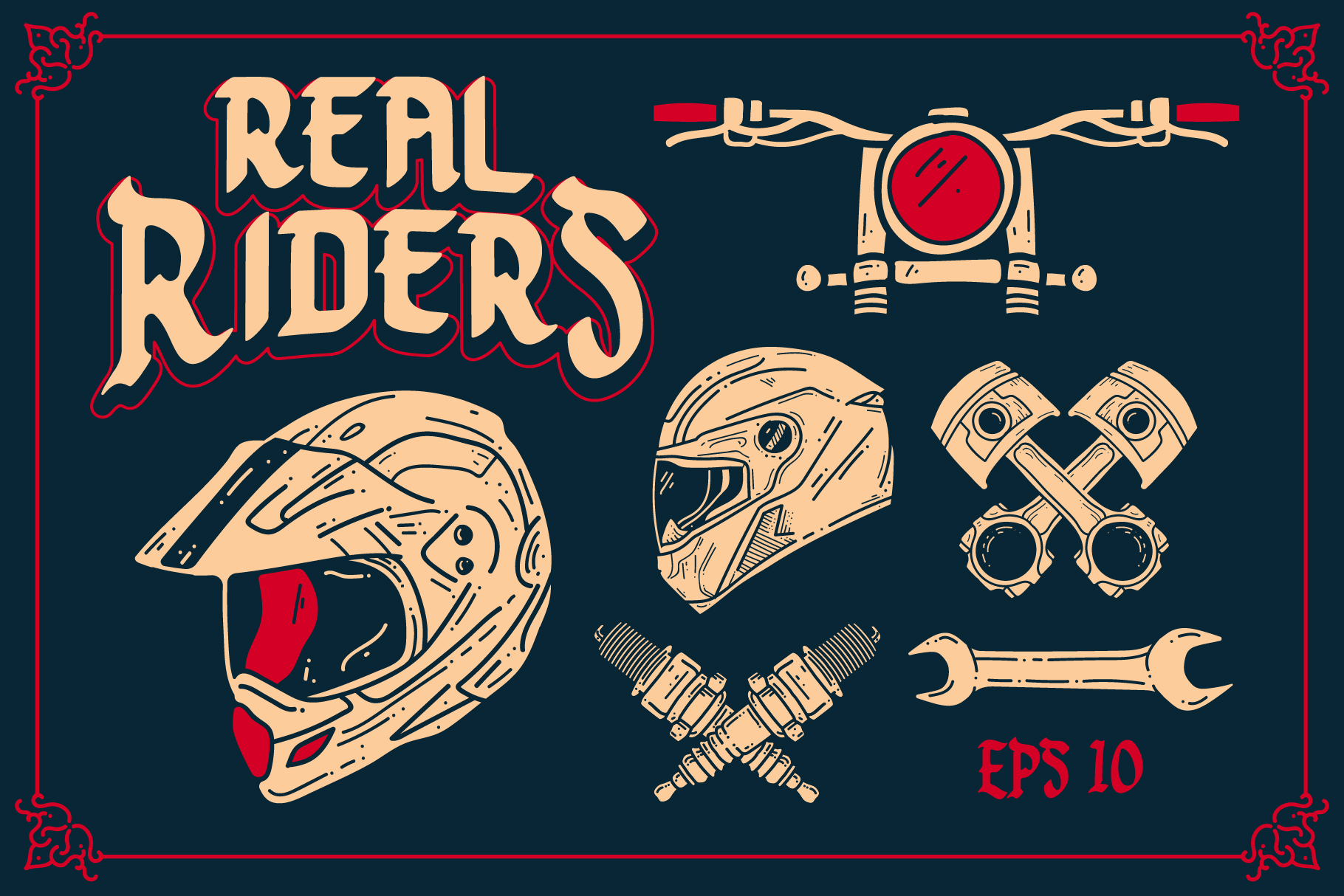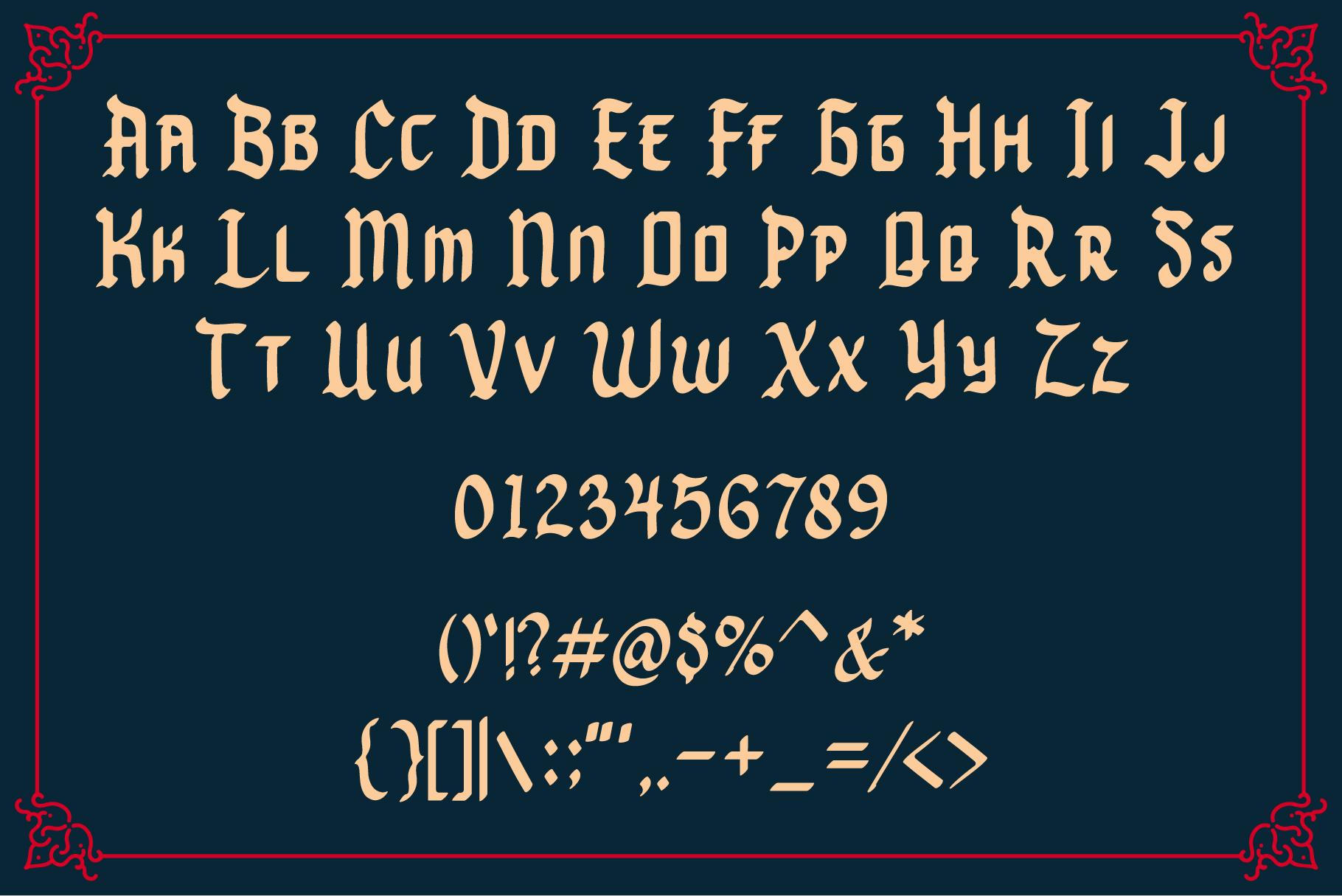
About Syadhes Font
Syadesh is a fresh handwritten Blackletter font. It also comes with a few extras vector graphic illustrations.
Syadesh is suitable font for logos, signatures, labels, posters, letterhead, music/book cover, etc.